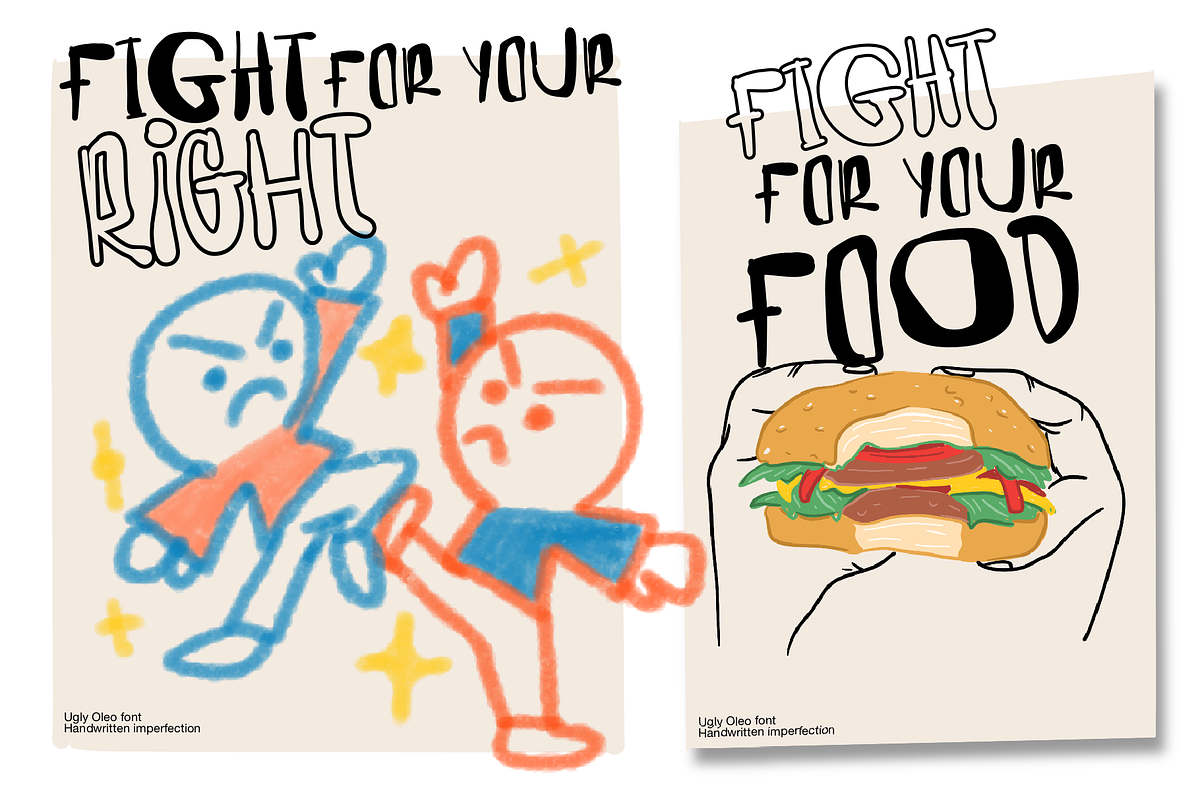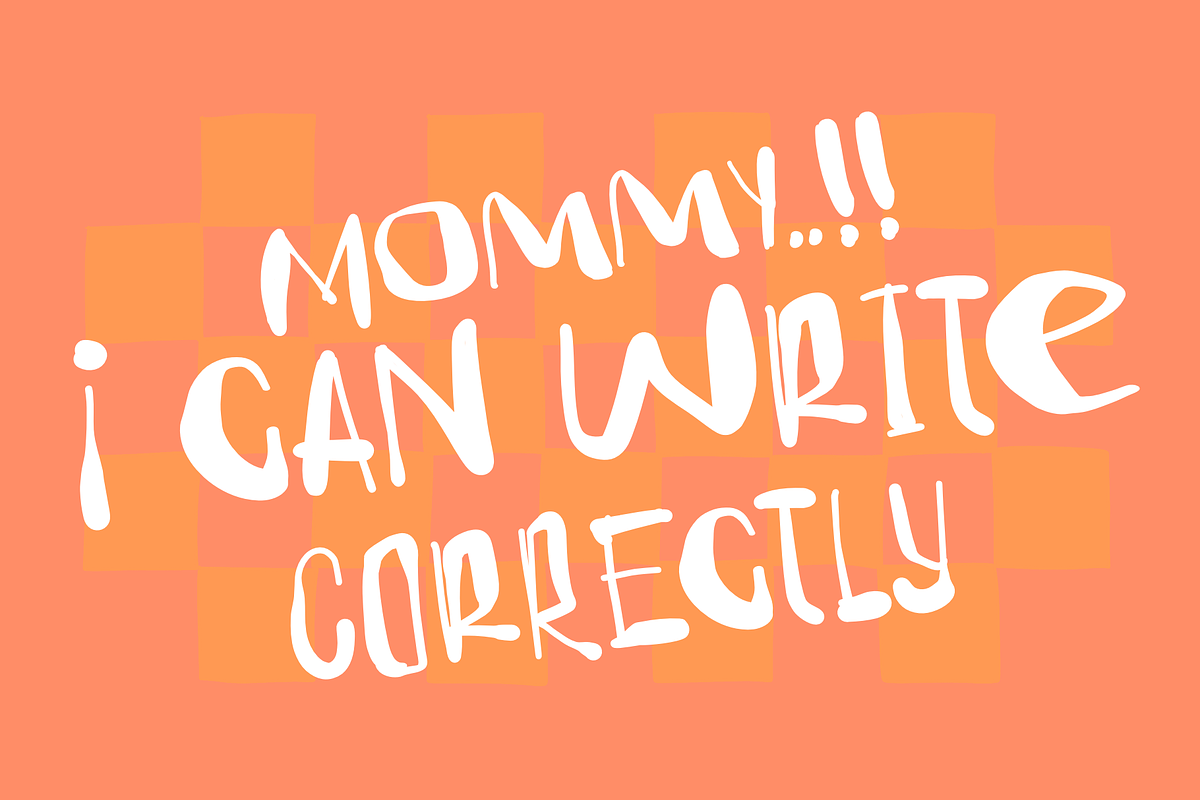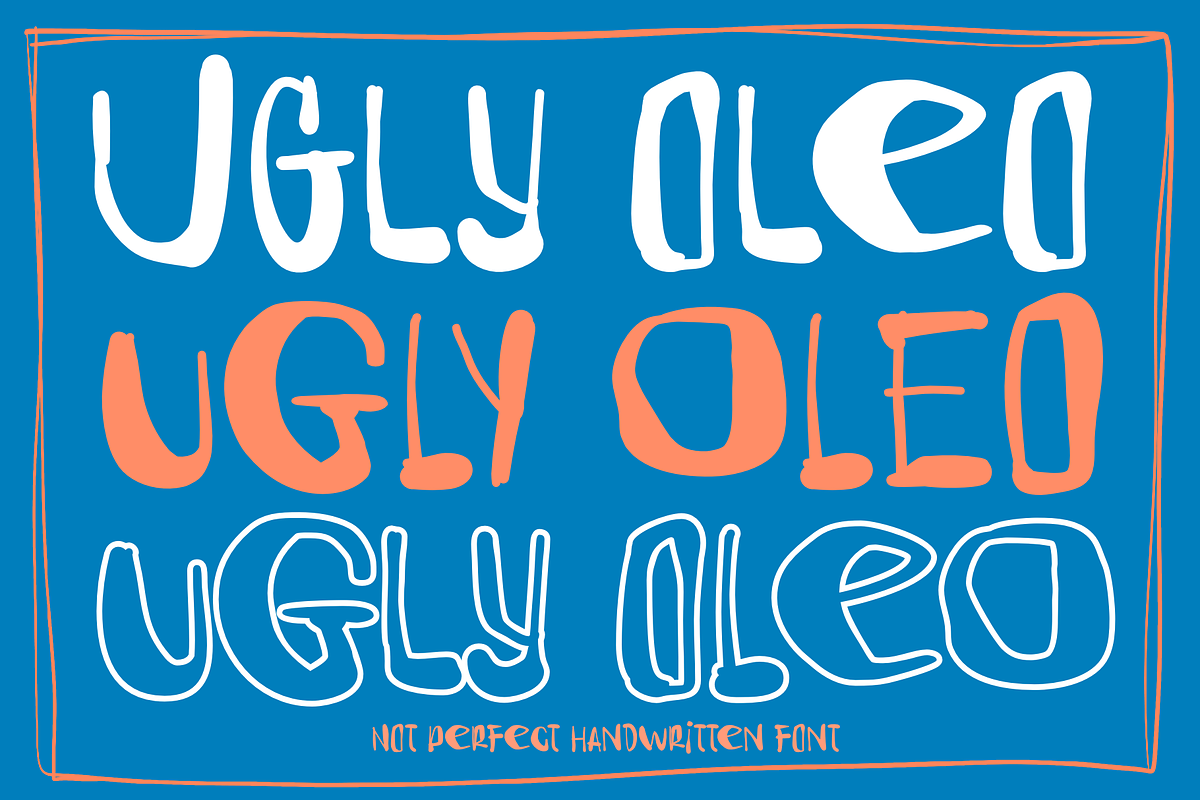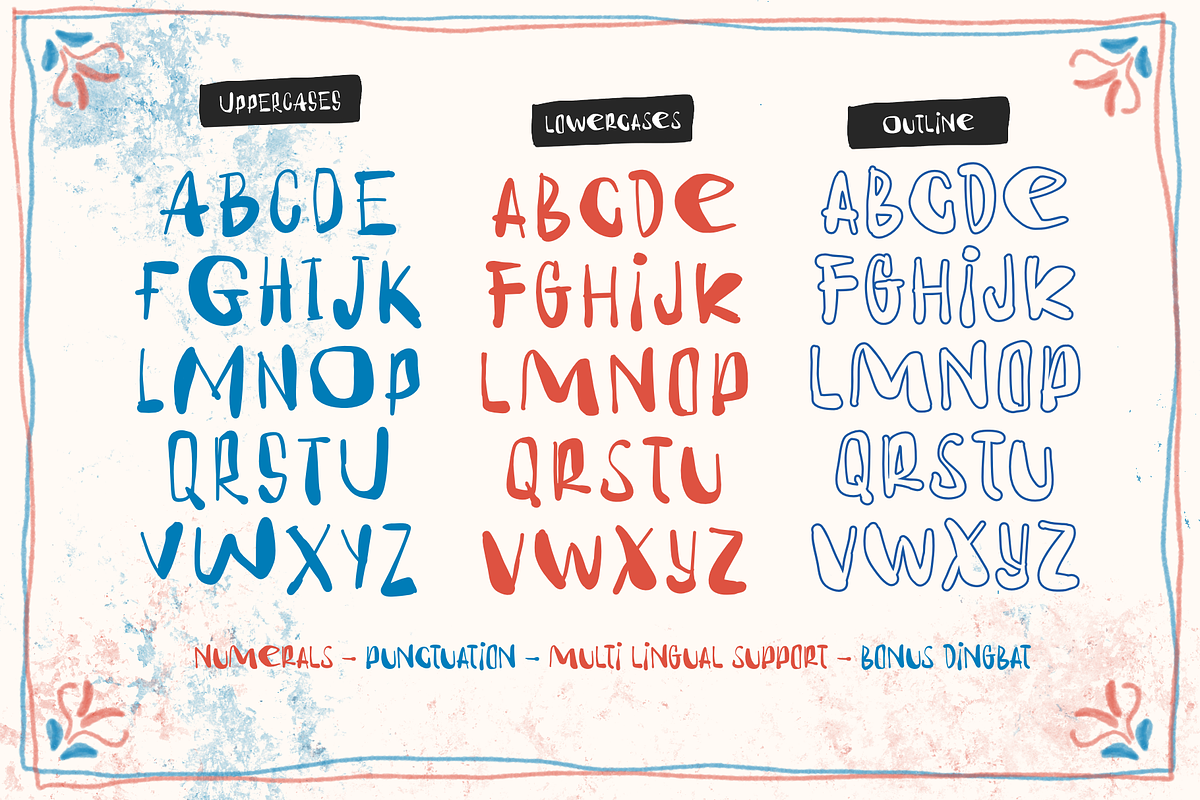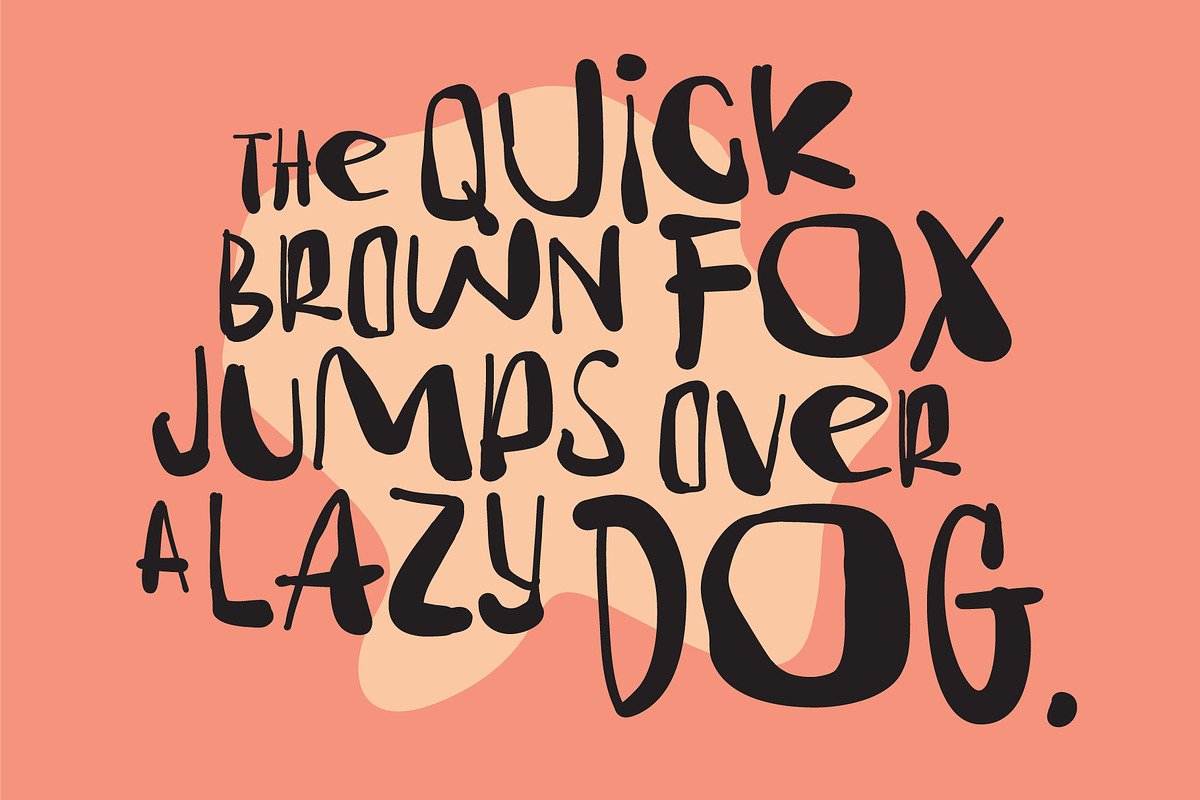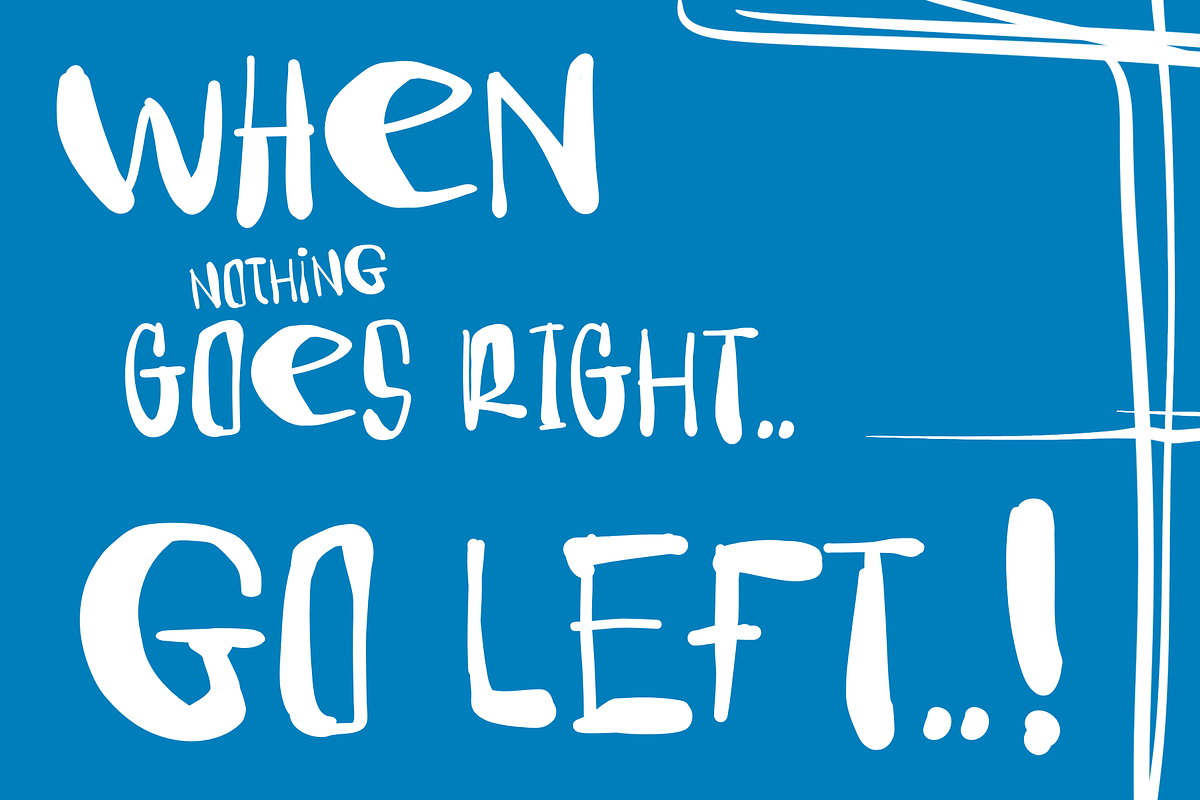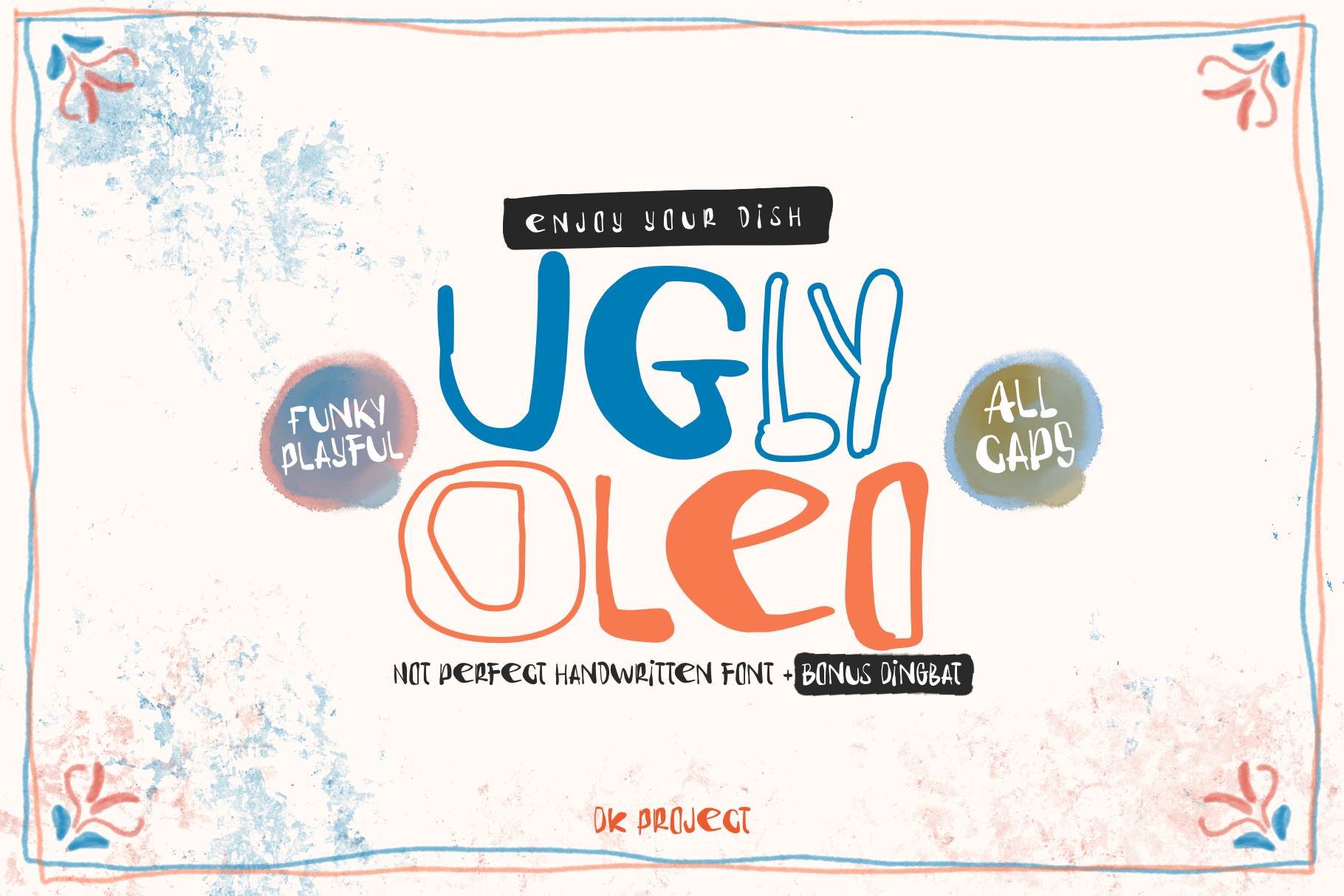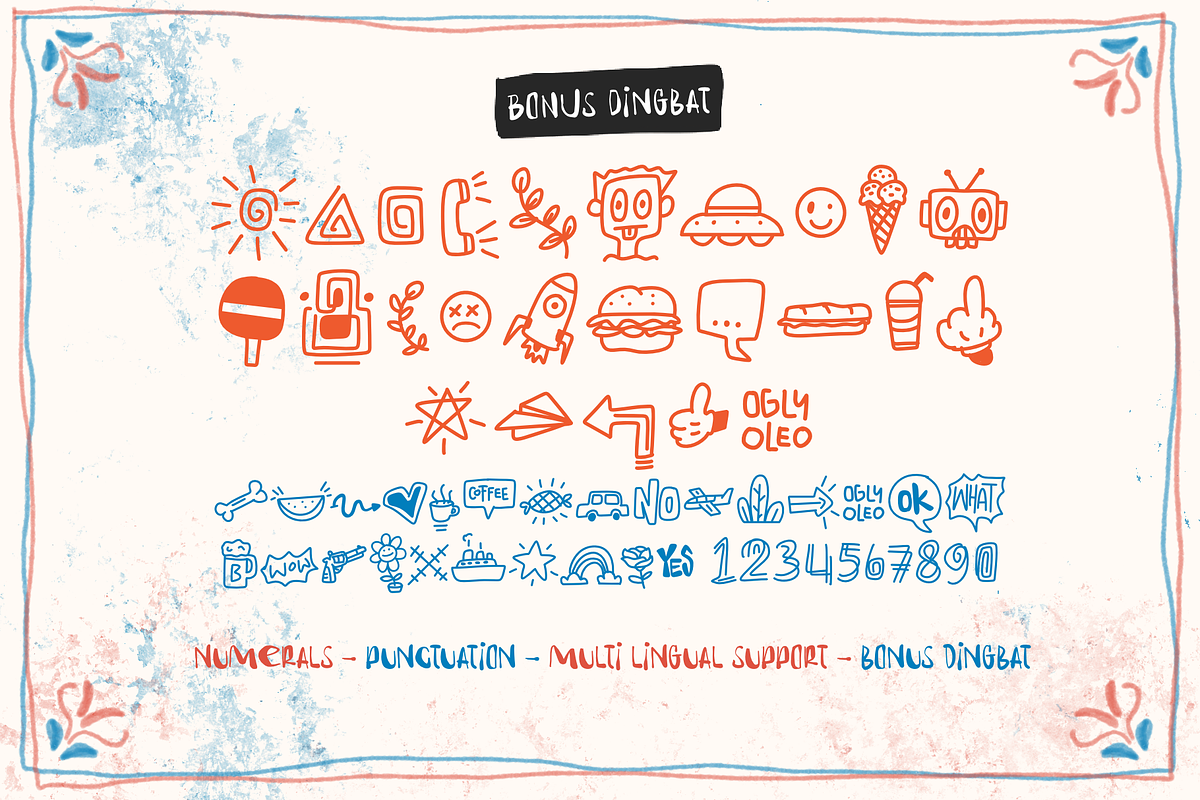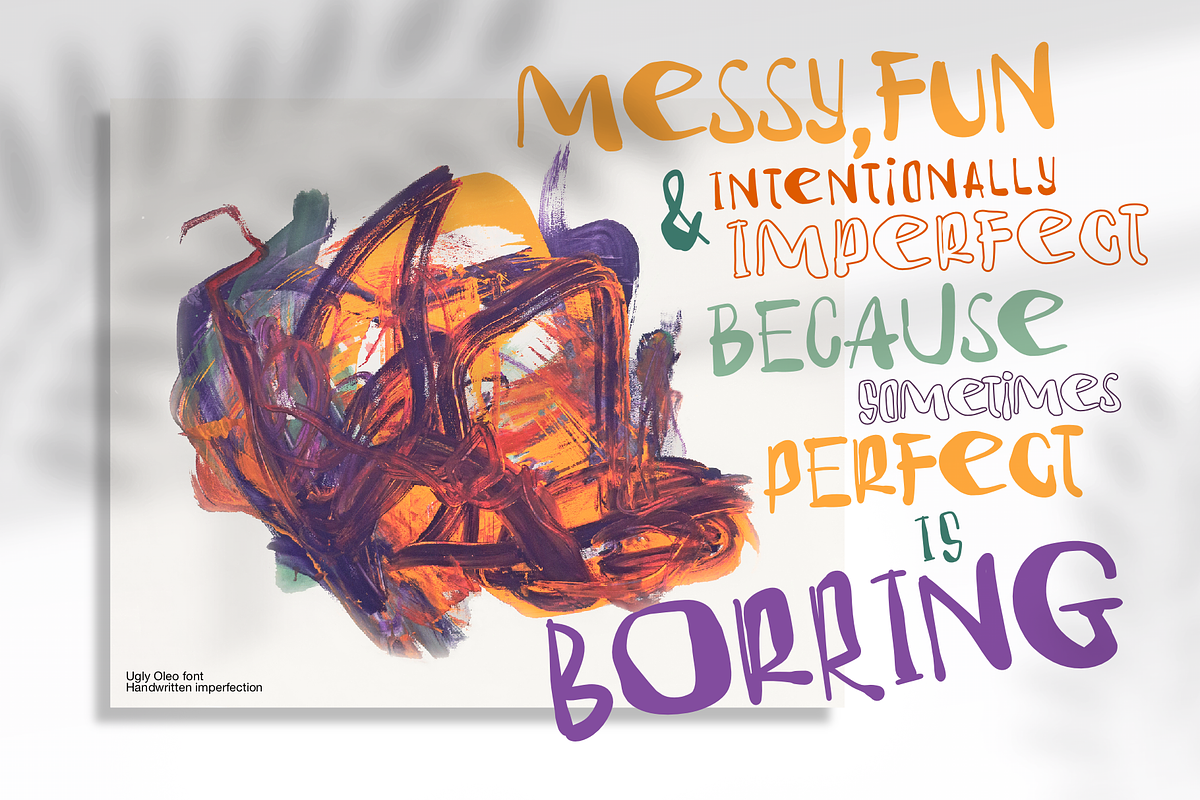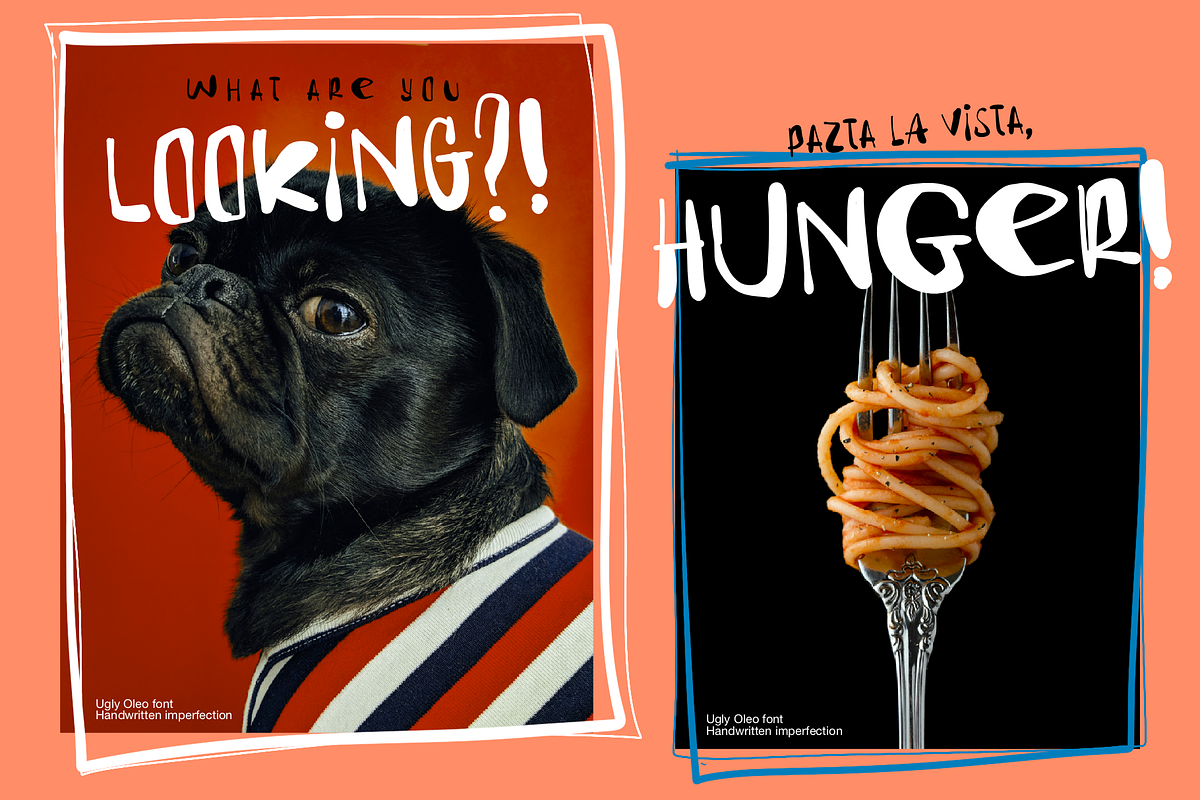
Ugly Oleo font
Ugly Oleo – Messy, Bold, and Beautifully Unique
Meet Ugly Oleo – a cartoonish, handwritten font that proudly breaks all the rules. It’s messy, and it’s exactly what makes it so eye-catching. With its irregular strokes and imperfect charm, Ugly Oleo brings a handcrafted, rebellious spirit to any design.
Whether you're creating logos, headlines, social media graphics, event invitations, branding, or quirky taglines, Ugly Oleo delivers that raw, expressive look that stands out in a world of clean lines and uniformity.
Perfect for projects that need a dose of authenticity, character, and unfiltered creativity. If you're not afraid to be bold, loud, and a little weird—this font is made for you.
Let your design be messy, memorable, and unmistakably you with Ugly Oleo.